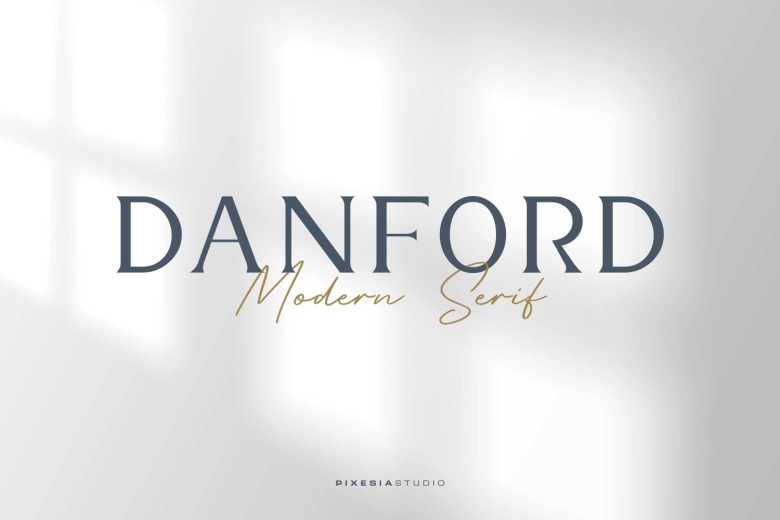
Danford Font
Danford Font is a modern display serif typeface. Danford provides the modernish and sophisticated vibes in your writing. It would most-likely give your products such luxurious and fancy look.
Danford is designed to be semi-bold type of font. Its sharp shape increases the readability of this font. Therefore Danford is suitable to be used for logos, headlines, label, or any writing which requires to be an emphasis.
Danford Serif Font